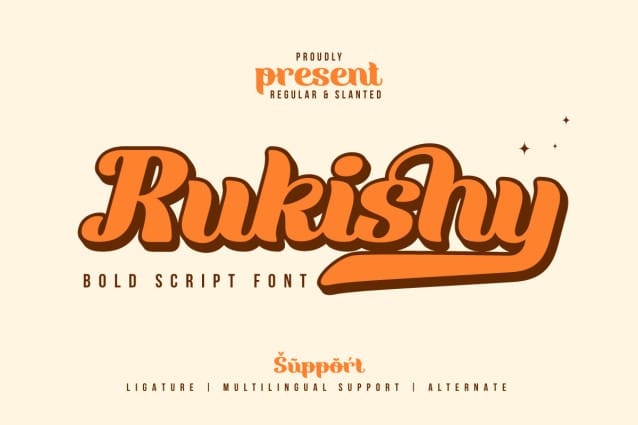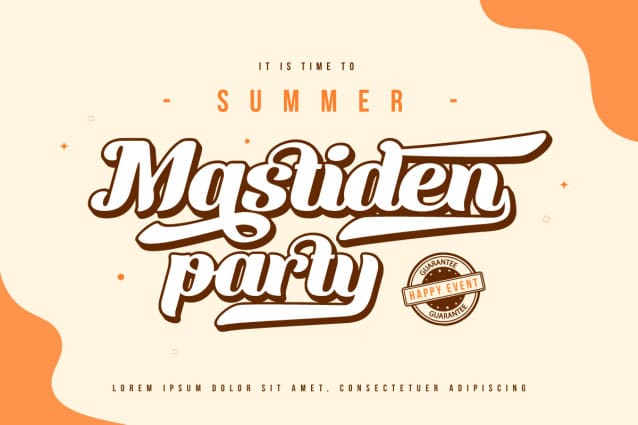
Rukishy Script Font
Rukishy Script Font is the most appropriate choice to enhance the visual appeal of your branding projects. With an attractive Script font style, this font presents an impressive design touch, creating an unforgettable charm.
What makes Rukishy Script so unique is its wide range of features. With a complete family that includes regular, shadow, slant, and shadow slant, you have everything you need to express your creativity optimally. Not only that but some ligatures and alternates add a unique touch to each character, helping you create truly original designs.
The ability to support multiple languages makes Rukishy a universal choice that allows you to reach a global audience. With its ease of use and flexibility, this font becomes a valuable asset in your design world.